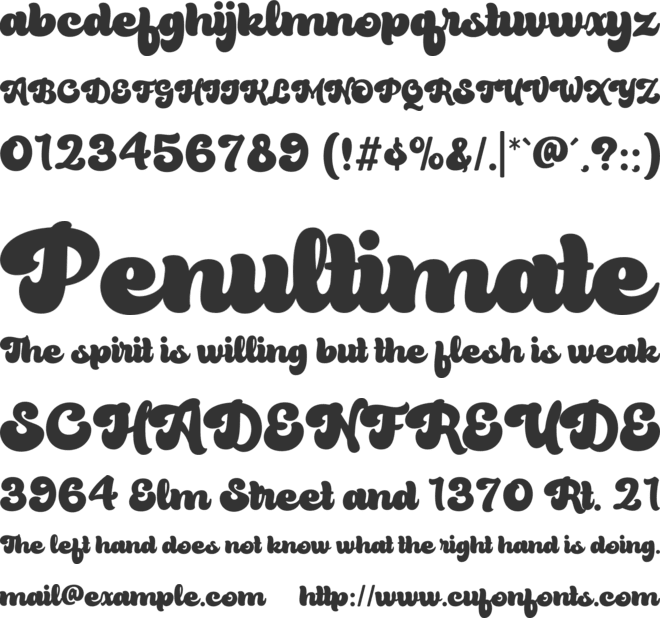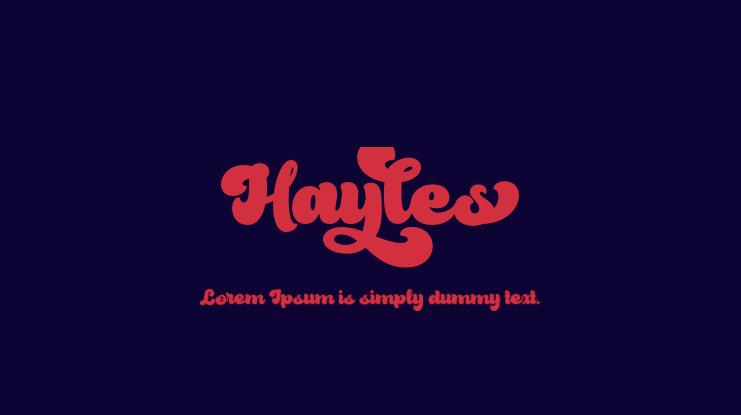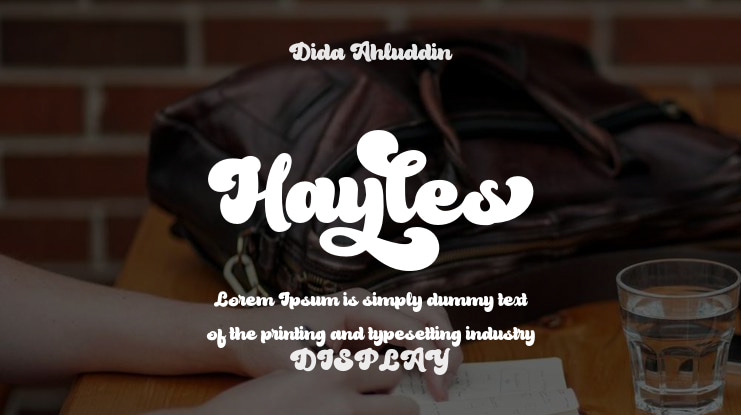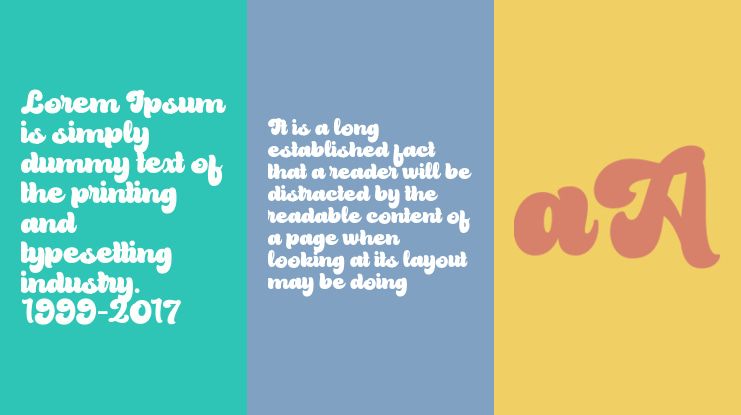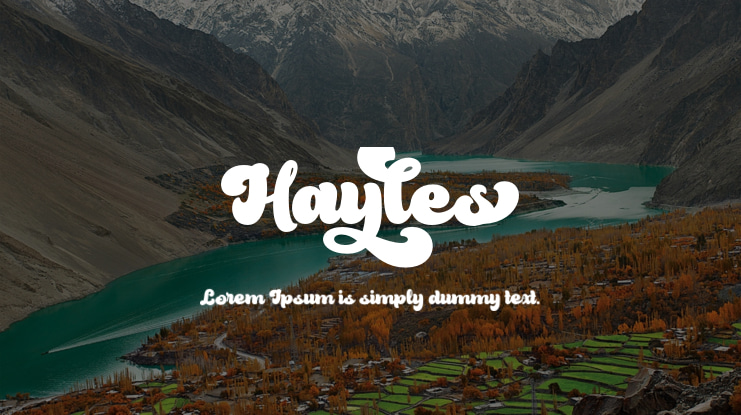
Hayles Font
Discover Hayles, an exciting retro-style script display font that will elevate your designs to new heights. Whether you're creating vintage-inspired posters, stickers, apparel, or captivating social media posts, Hayles is sure to leave a lasting impression on your audience.
With its PUA encoding, accessing the extensive collection of glyphs and swashes is a breeze. Unleash your creativity with Hayles and watch your designs come to life!